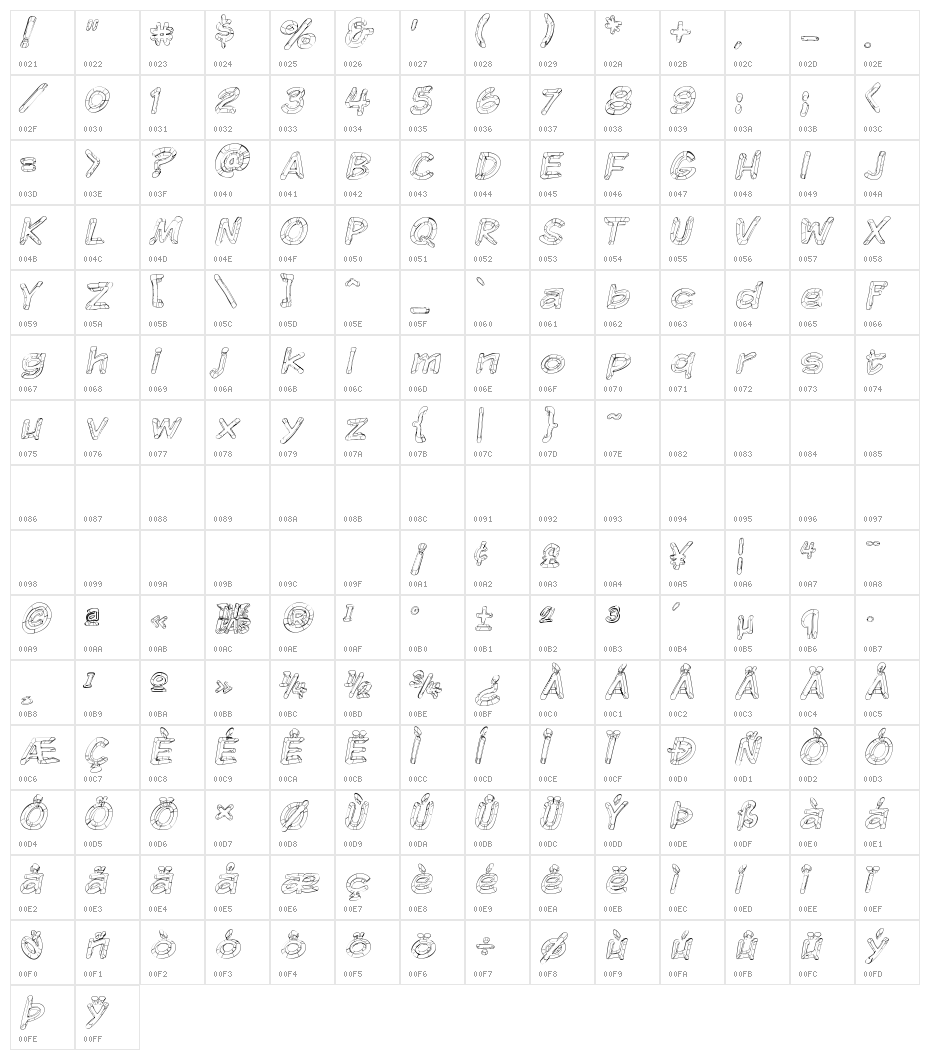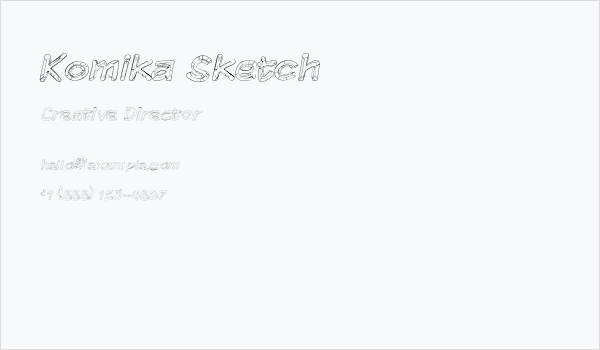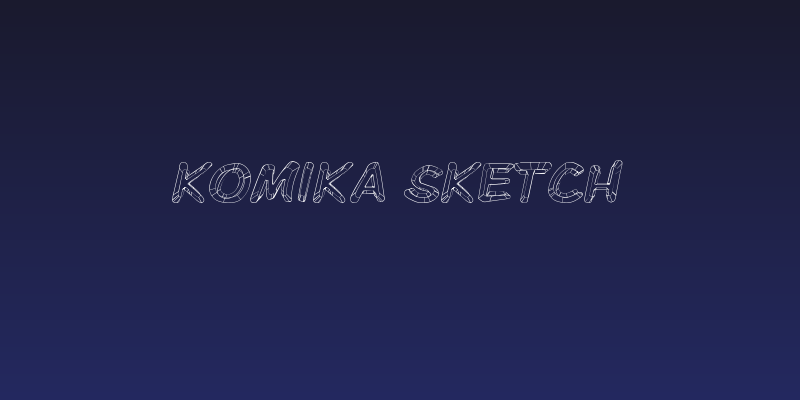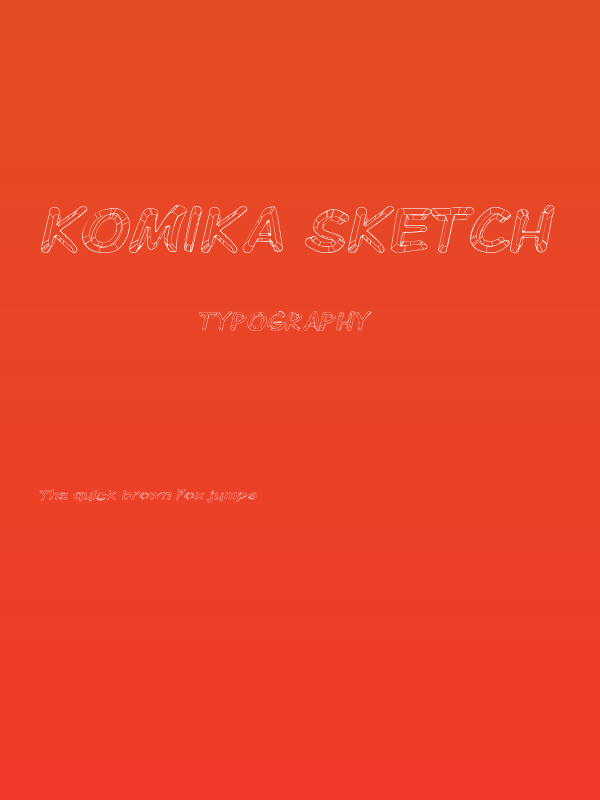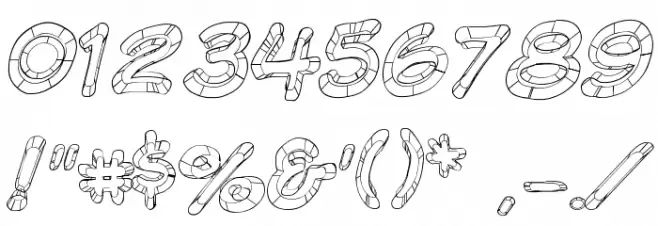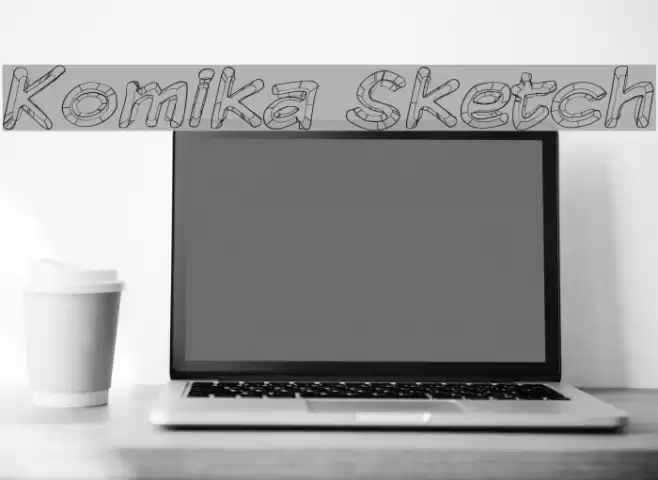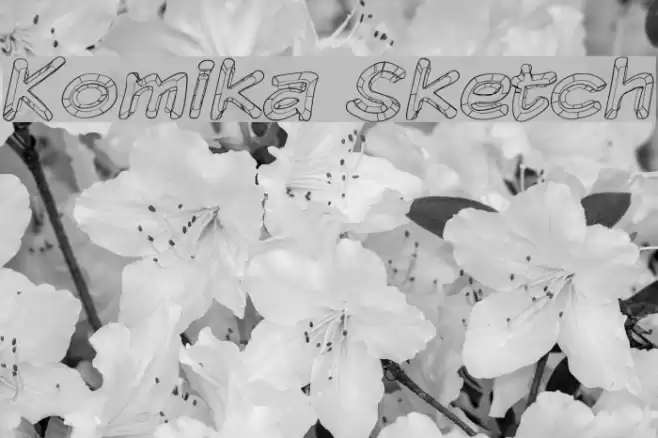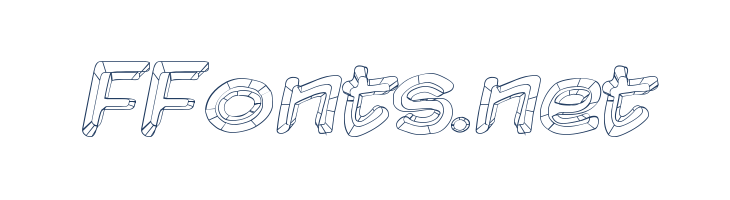
Komika Sketch Font
This playful and dynamic font features a sketch-like, hand-drawn appearance with a three-dimensional effect. Each character is outlined with a bold, irregular line that gives it a cartoonish and whimsical feel. The letters are slightly slanted, adding to the casual and informal style. The font includes both uppercase and lowercase letters, numbers, and a variety of special characters, all maintaining the same sketchy aesthetic. The overall design is reminiscent of comic book lettering, making it ideal for projects that require a fun and engaging look.
| Overall Style | Playful, Cartoonish |
| Proposed Projects | Ideal for comic books, children's books, playful branding, and creative posters. |